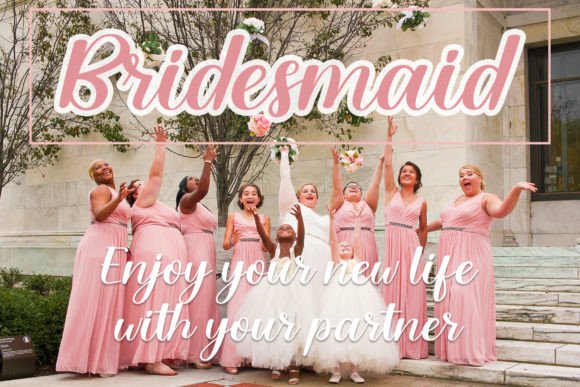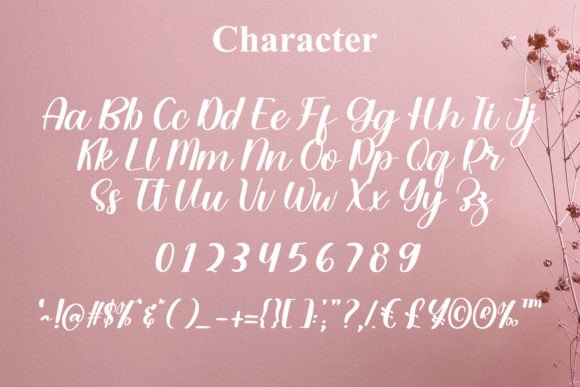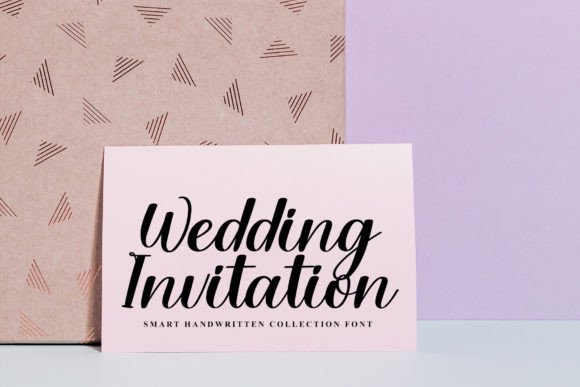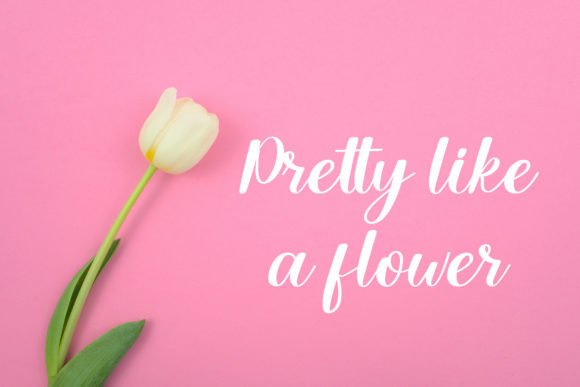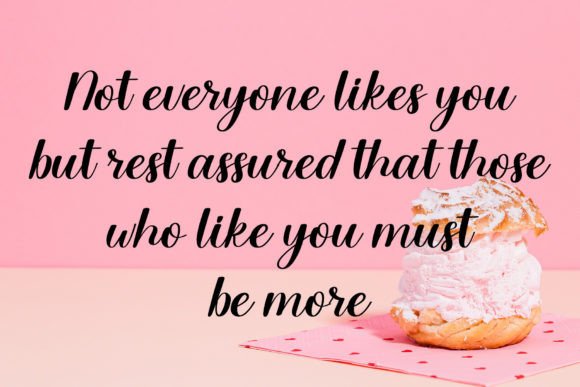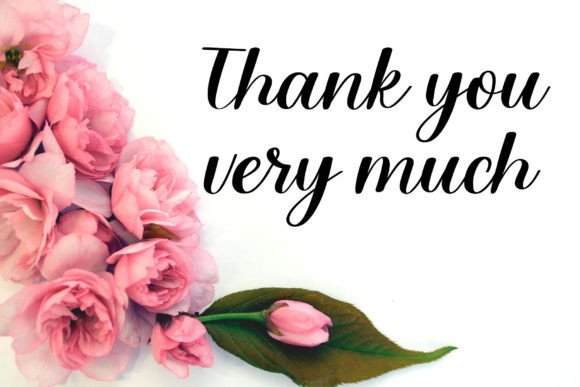
Introduction to Pastel Font
Have you ever been working on a creative project, pouring your heart and soul into every detail, only to be held back by the perfect font to match your vision? That’s where the magic of the Pastel Font comes in. This beautiful handwritten font is a game-changer for designers, offering an elegant touch that elevates any design to the next level.
With its incredibly distinct and timeless style, the Pastel Font is a must-have for any design resource. Whether you’re working on a personal project or a commercial venture, this high-quality font is sure to impress. Plus, with its transparent background, it’s easy to pair with any image or texture, making it a versatile design tool that’s hard to resist.
So why settle for an ordinary font when you can have the extraordinary Pastel Font? This free download is a valuable asset for designers who want to take their creative projects to the next level. Let’s dive into the world of Pastel Font and discover why it’s a design favorite among creatives.
Pastel Font
- Includes 10 unique pastel-colored fonts with varying styles and weights
- Perfect for designers, artists, and creatives seeking a unique design element
Honest Review: Pastel Font
I recently stumbled upon the Pastel Font, and I must say it’s been a great addition to my design resource collection. I’m a big fan of elegant, high-quality fonts that can elevate any creative project.
- ✨ The font’s pastel color palette is perfect for creating a soft, delicate look.
- ✨ The font is highly legible, even in smaller sizes.
However, I do have some reservations:
- ⚠️ The font doesn’t have a transparent background, which can make it tricky to use with certain design elements.
- ⚠️ The font family is relatively small, which might limit its versatility in certain design projects.
Overall, I’m quite impressed with the Pastel Font. It’s a great choice for designers looking for a high-quality, elegant font for their creative project. While it has some limitations, it’s definitely worth considering for your next design project.
Getting the Most Out of Pastel Font
Experiment with different font sizes, colors, and styles to create a unique design. Use Pastel Font in combination with other design elements to add visual interest to your project. For a cohesive look, use the font consistently throughout your design.
Pastel Font is commonly used in wedding invitations, baby shower decorations, and other creative projects that require a soft, pastel color scheme. It’s also a great option for branding and marketing materials, such as business cards and brochures.